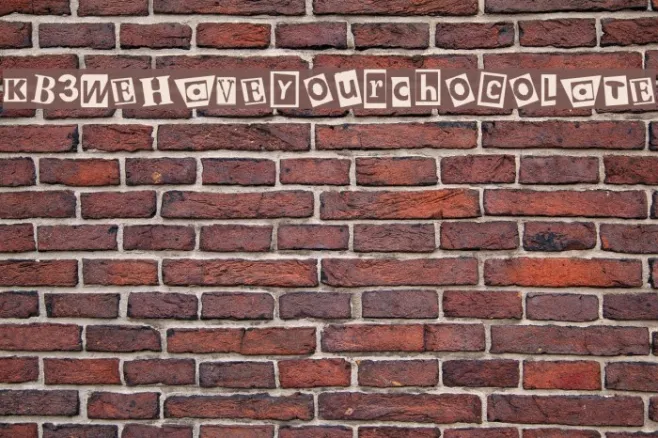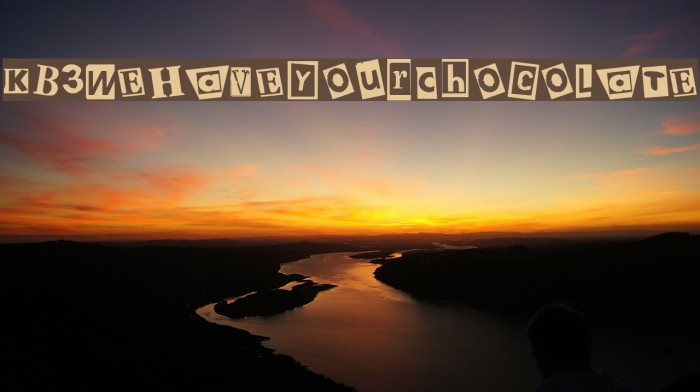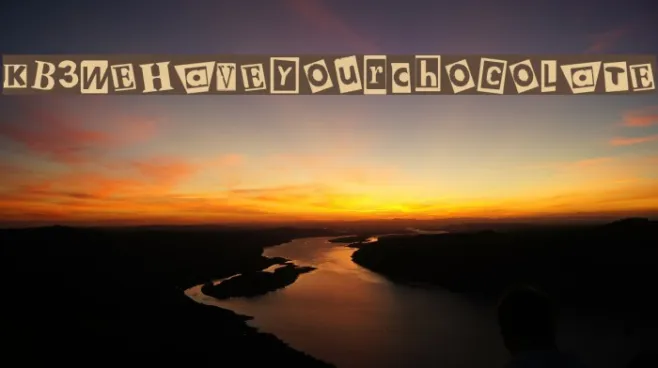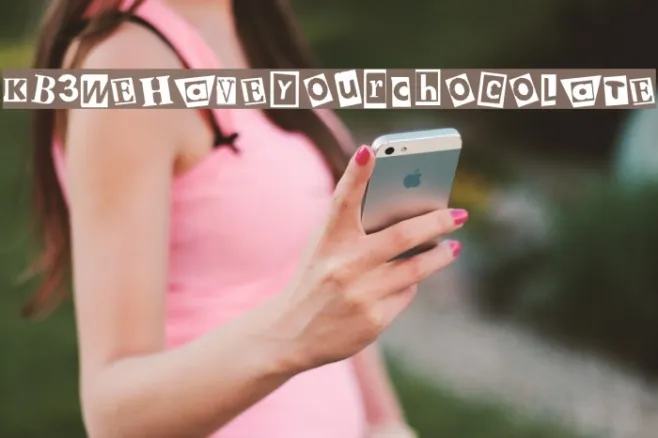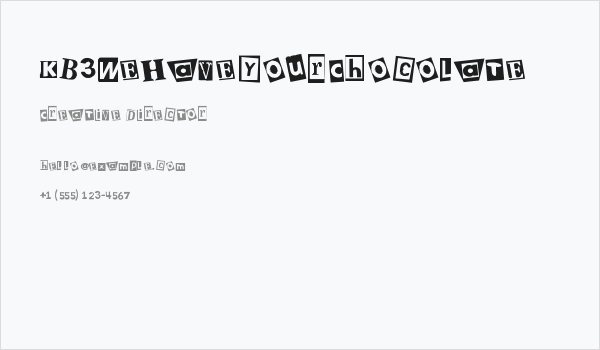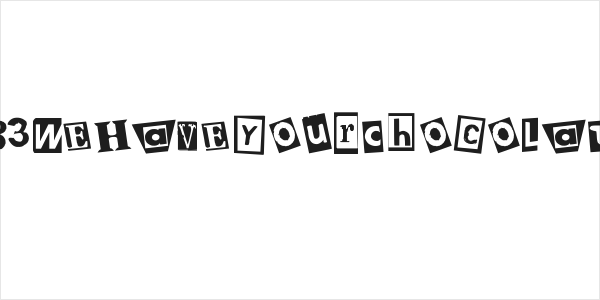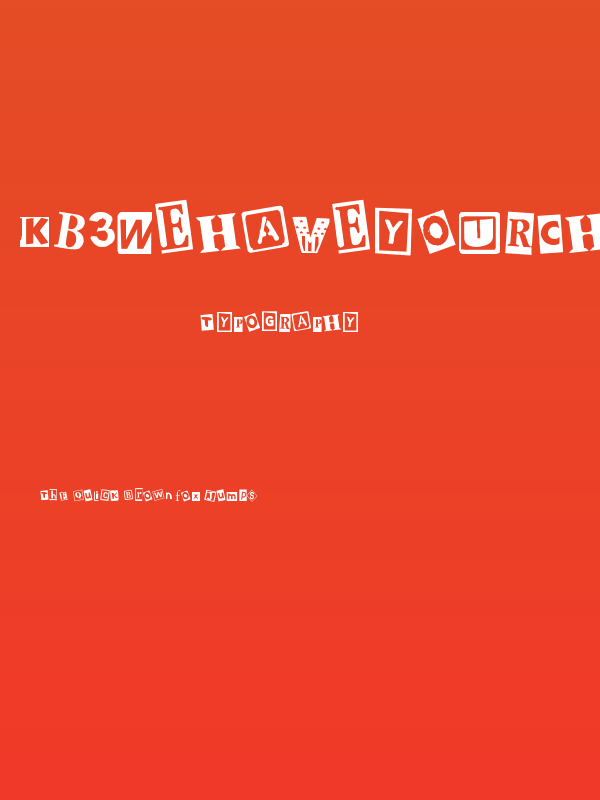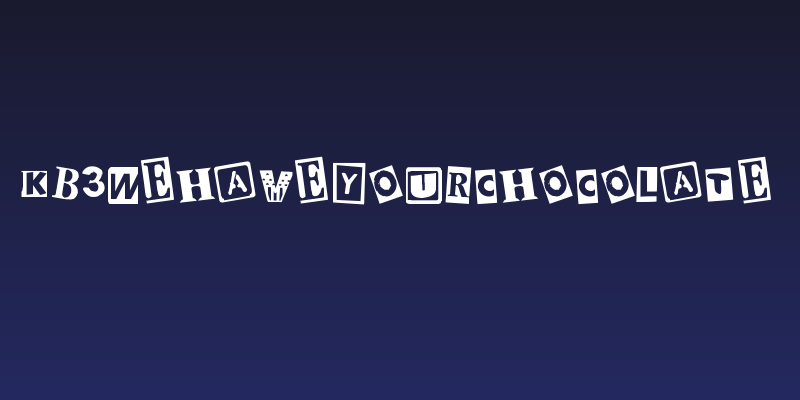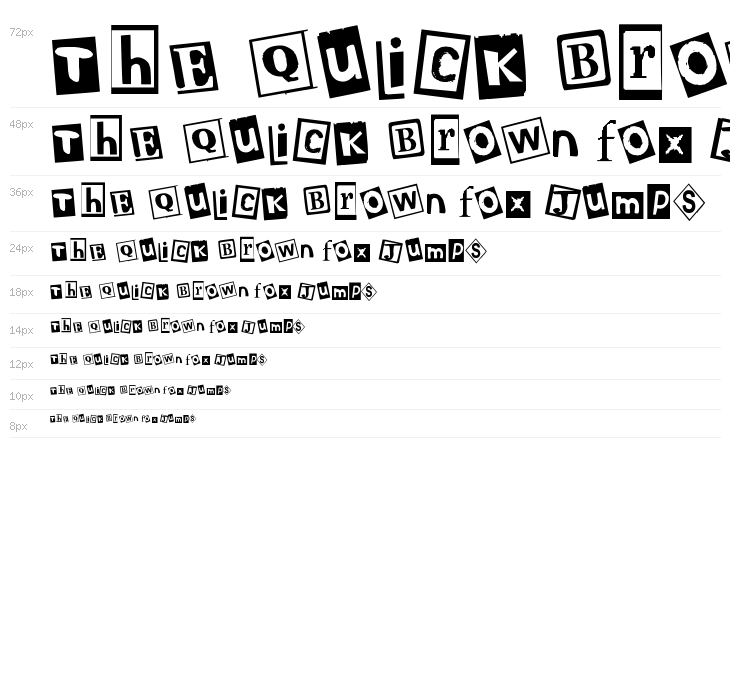
KB3WeHaveYourChocolate Font
KB3WeHaveYourChocolate Description
This font features a playful and eclectic style, reminiscent of cut-out magazine letters often used in ransom notes. Each character is uniquely designed with varying shapes, sizes, and decorative elements, giving it a distinct and quirky appearance. The uppercase and lowercase letters, as well as numbers and special characters, are all presented in a mismatched fashion, adding to its charm. The font's irregularity and boldness make it stand out, perfect for projects that require a fun and unconventional look.
Use CaseHeadlines, Posters, Creative Designs
Proposed ProjectsIdeal for creative projects such as posters, flyers, children's book covers, and any design that requires a whimsical and eye-catching font.